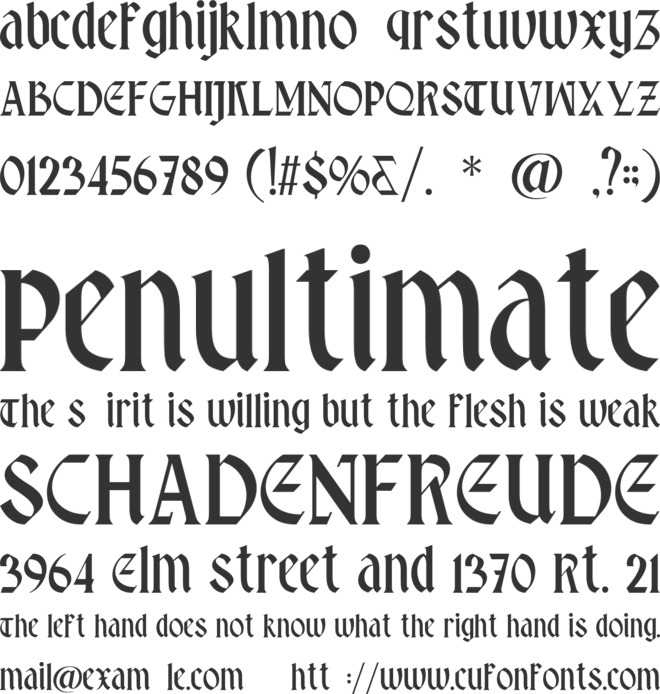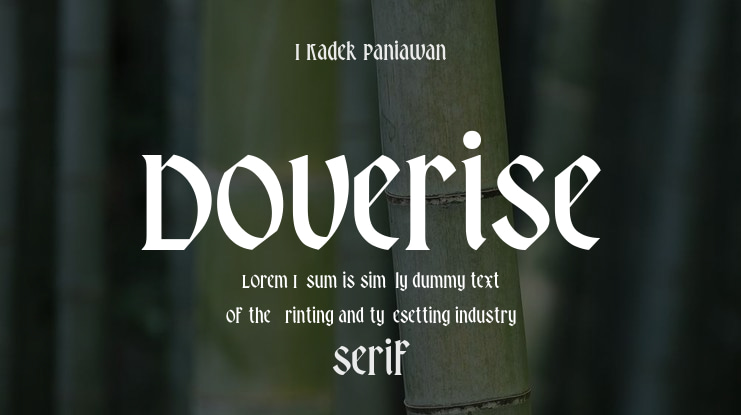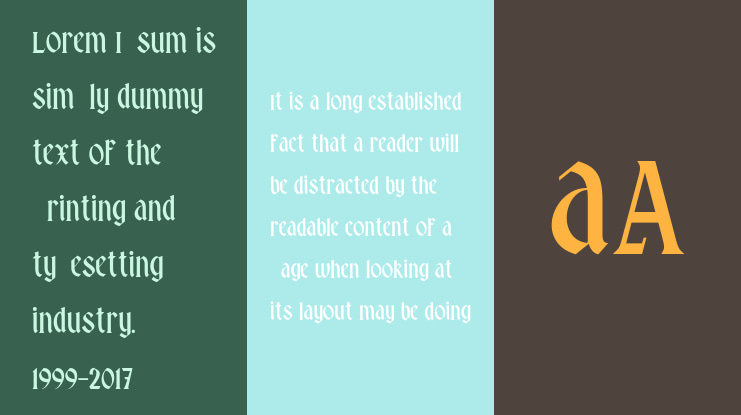
Doverise Font
I Kadek Paniawan
Doverise Typeface is a modern gothic serif with a striking blend of blackletter elegance and contemporary typographic power. Designed to be bold, expressive, and distinctly masculine, Doverise is built for designers looking to make a strong visual impact. The font features an innovative balance between sharp angular letterforms and ornamental curves, enhanced by tribal-style swashes, making it ideal for everything from dark branding to high-impact editorial design.
Crafted with meticulous detail, Doverise contains a total of 924 glyphs, offering a wide array of ligatures, alternates, and decorative elements. These features give you the flexibility to create unique typographic compositions that feel custom and elevated.